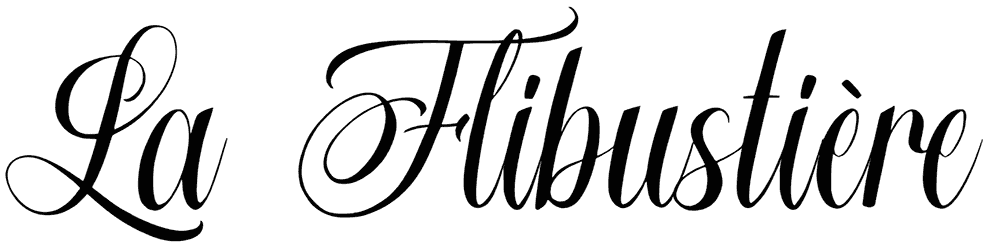
La Flibustiere Font
Designed byOctotype Thomas Boucherie
What if we told you that you can grab an eye-catching yet simple font without spending a dime? You won’t want to miss La Flibustiere font, a gorgeous handwriting font that makes a bold statement.
This certificate font is the most suitable for making wedding invitations, business cards, greeting cards, and labels. Design your creations with a hand-crafted lettering design that will add a touch of character and personality with a bit unreadable feature.